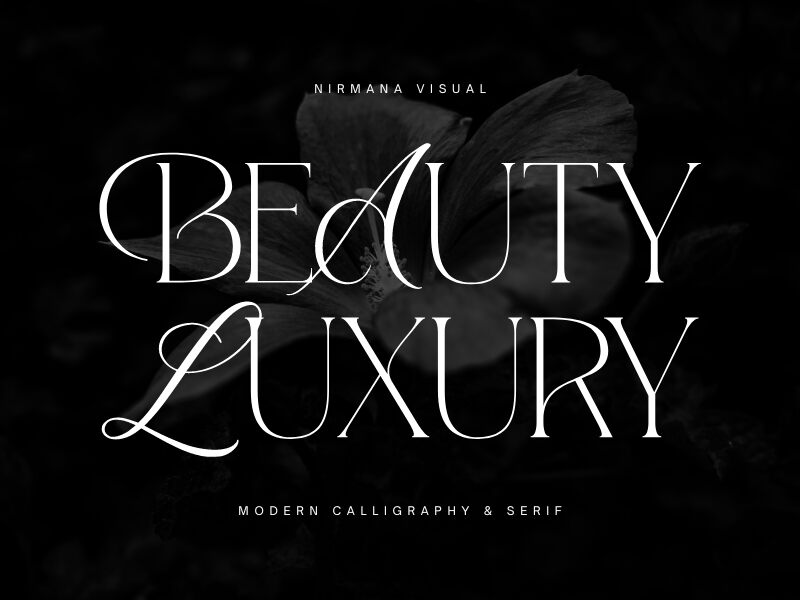
Beauty Luxury Regular
Beauty Luxury by Nirmana Visual is a font that exudes elegance and a timeless charm, reminiscent of the golden era of vintage design. It presents itself with graceful curves and sophisticated flourishes, making it a perfect embodiment of its name. The style conveys opulence and high-end appeal, with letterforms that boast an expanded presence, ensuring they capture attention and hold it with ease.
Ideal for branding that demands an air of exclusivity or for editorial work looking to infuse classic glamour, Beauty Luxury lends itself to designs where a touch of class is paramount. Its retro flair makes it especially suited for projects that aim to evoke nostalgia while maintaining a polished look. Whether on the cover of a luxury magazine or emblazoned across premium packaging, this font promises to imbue any project with its distinctive allure.